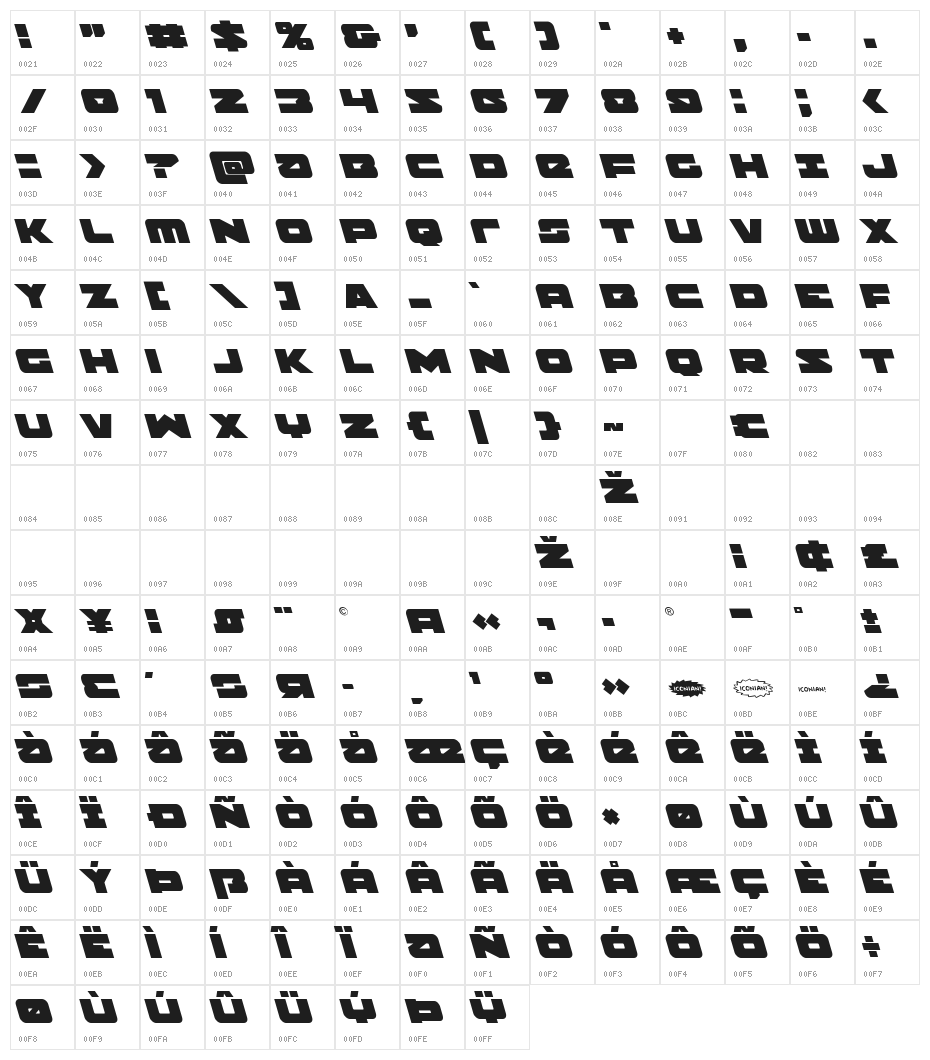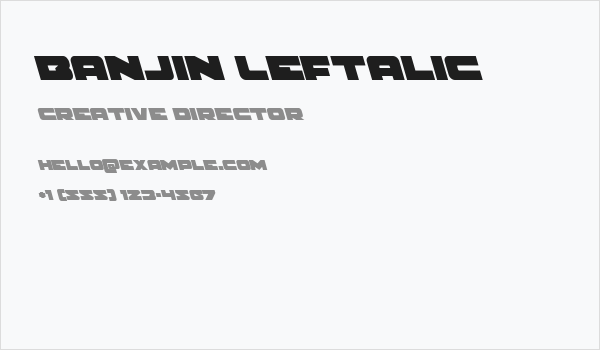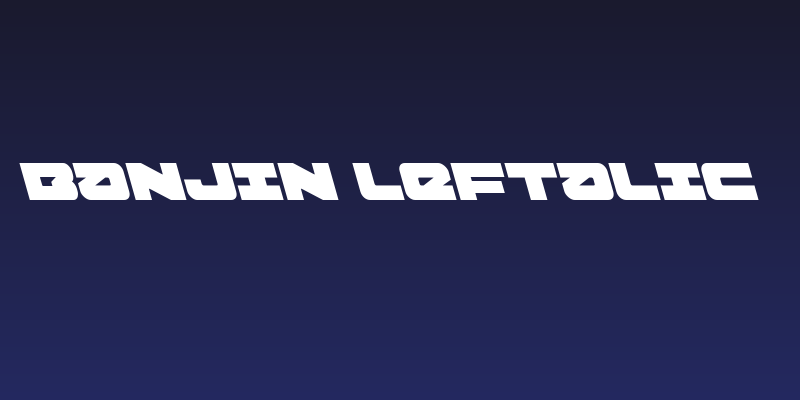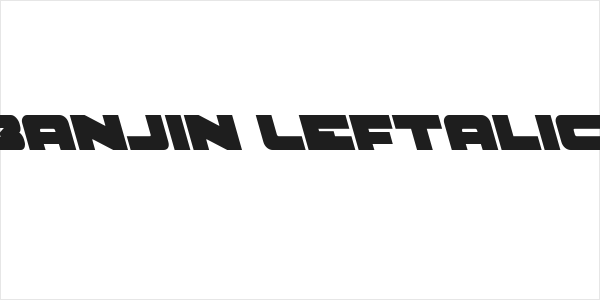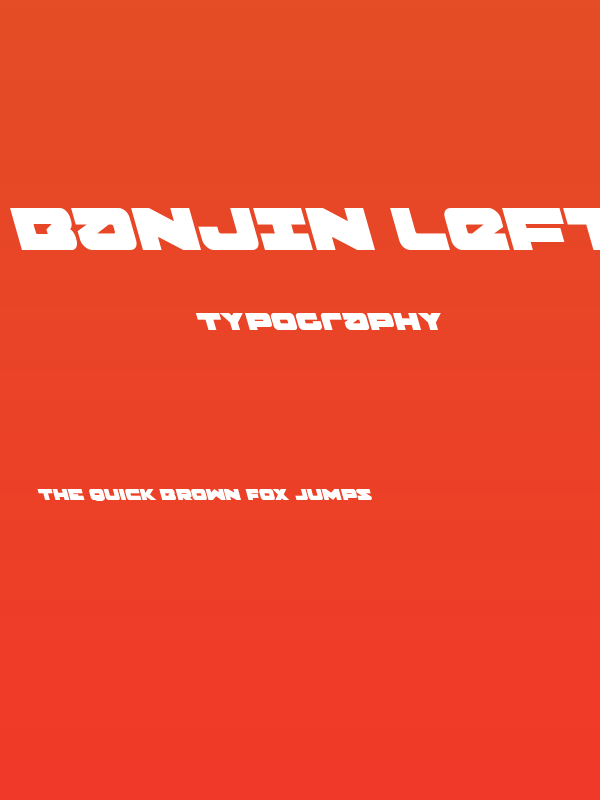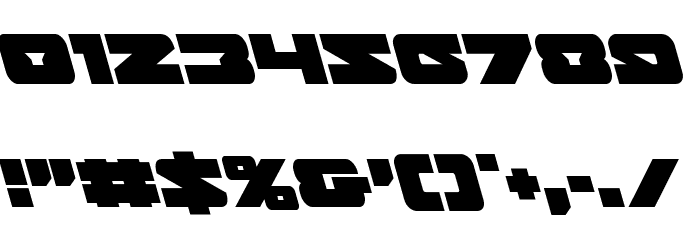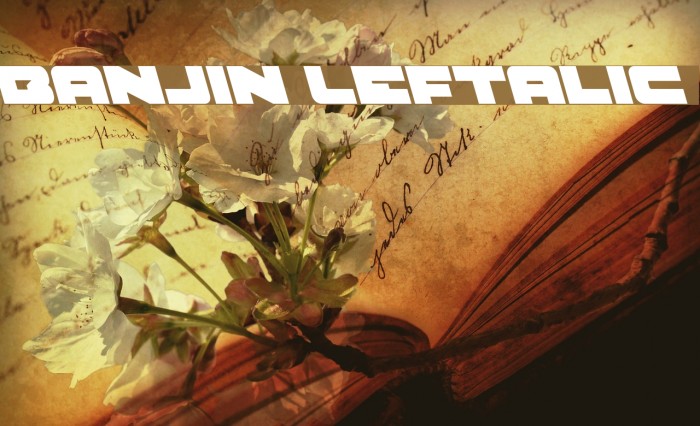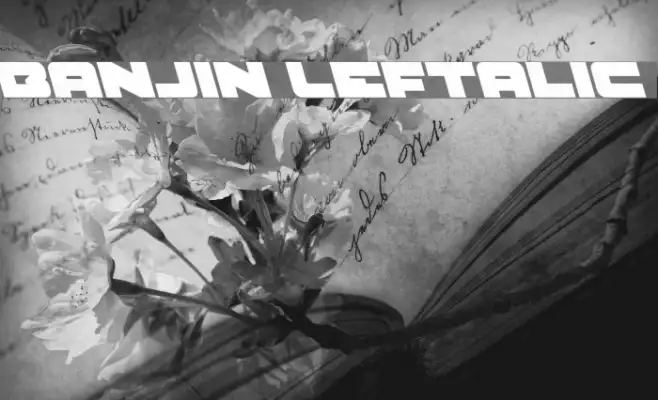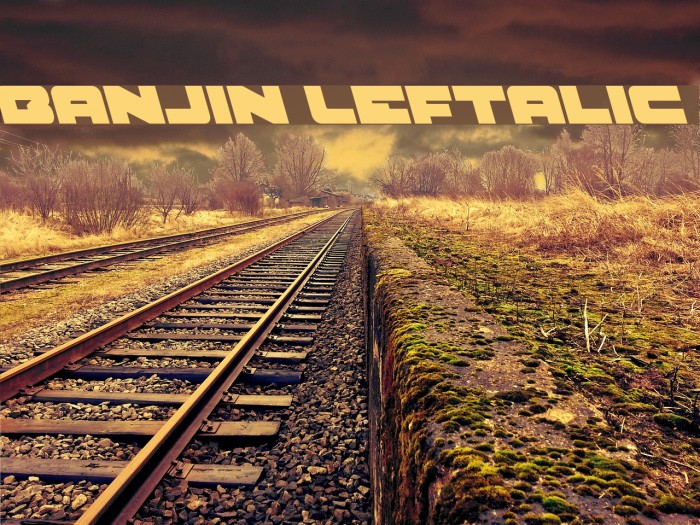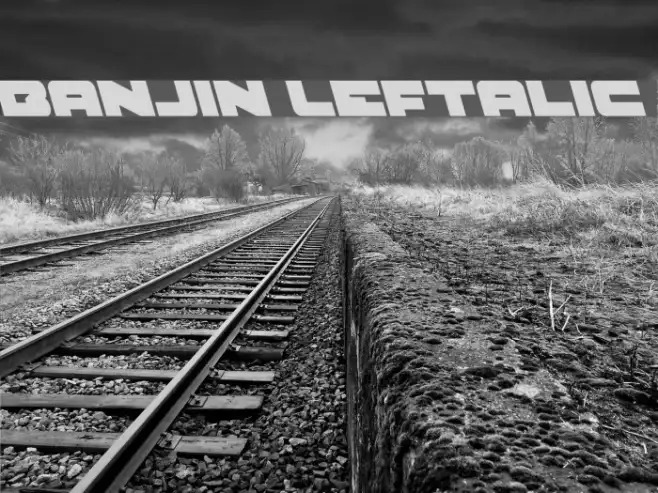
Banjin Leftalic Font
Banjin Leftalic Description
This font features a bold and dynamic style with a futuristic flair. The characters are designed with sharp angles and a slightly italicized slant, giving them a sense of motion and energy. The bold weight and thick strokes make it highly visible and impactful, suitable for attention-grabbing designs. The spacing between characters is tight, enhancing the compact and cohesive appearance. This font's unique geometric shapes and modern aesthetic make it ideal for projects that require a strong visual presence.
| Proposed Projects | Ideal for sci-fi themed posters, video game graphics, and modern branding. |